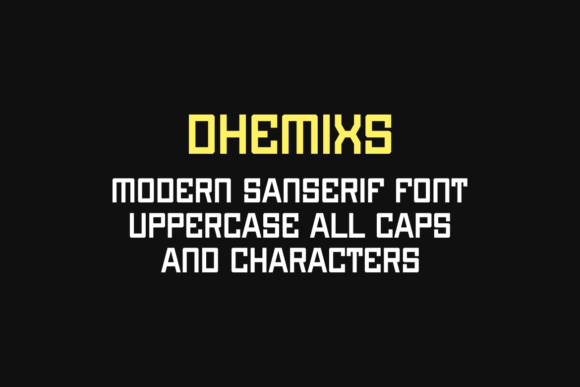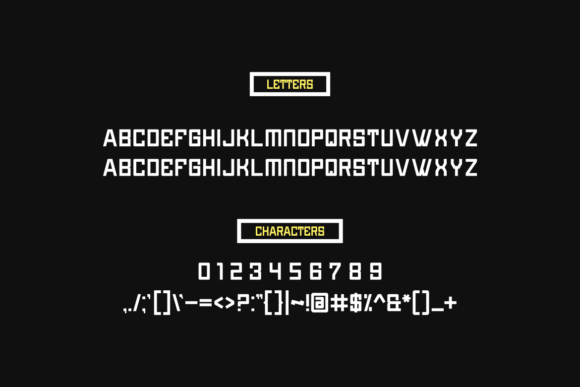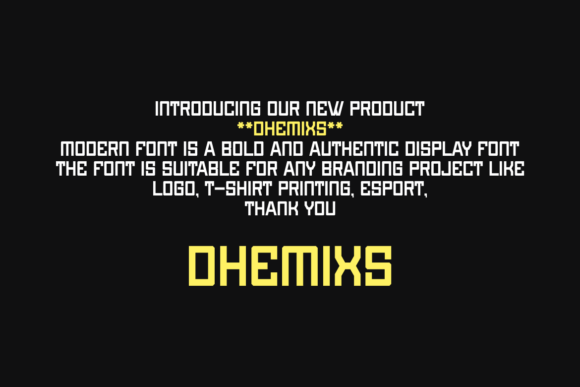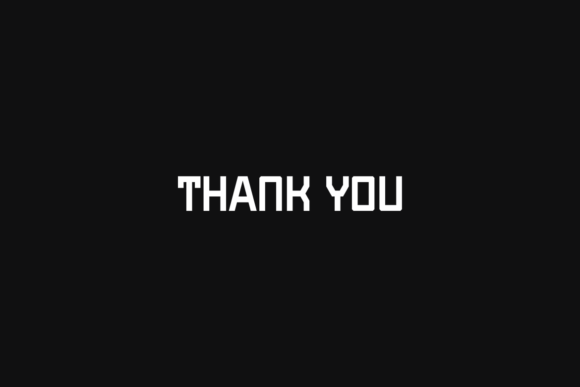
Introducing Dhemixs Font: The Modern Display Font You Need
What Makes Dhemixs Font Stand Out?
Dhemixs Font is a bold and authentic display font designed to elevate your branding projects, logos, esport designs, and more. Its versatility allows it to shine in a wide range of contexts, making it a fantastic addition to any designer’s font library.
- ✨ Bold and Authentic: Dhemixs Font has a unique boldness that grabs attention without being overpowering.
- ✅ Versatile: It works well in various design contexts, from logos to esport designs.
- 💡 Instant Recognition: The font’s distinctiveness ensures your designs stand out.
⚠️ While Dhemixs Font is incredibly versatile, there are a few things to keep in mind:
- 🤔 It might not be the best fit for body text due to its bold nature; it’s more suited for headings and titles.
- ⚠️ Some of the more intricate details might not render as clearly at very small sizes.
Dhemixs Font was crafted with the modern designer in mind. Inspired by the rapidly evolving digital landscape, its creator aimed to produce a font that was not only visually striking but also highly functional across various platforms. The result is a font that embodies both modernity and timelessness.
Q: Is Dhemixs Font suitable for body text?
A: While Dhemixs Font is incredibly versatile, its bold nature makes it more suited for headings and titles rather than body text.
Q: Does Dhemixs Font include OpenType features?
A: Yes, Dhemixs Font comes with OpenType features, allowing for more creative flexibility in your designs.